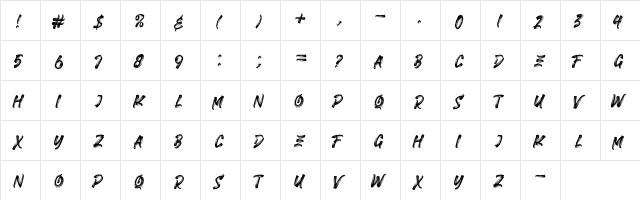
FIGHTER BRUSH Regular
| Designer | Typeline Studio 2020 |
Design Context for FIGHTER BRUSH Typeface
FIGHTER BRUSH brings a calligraphic fluidity to the page — its connecting strokes and expressive curves give it an unmistakably human quality.